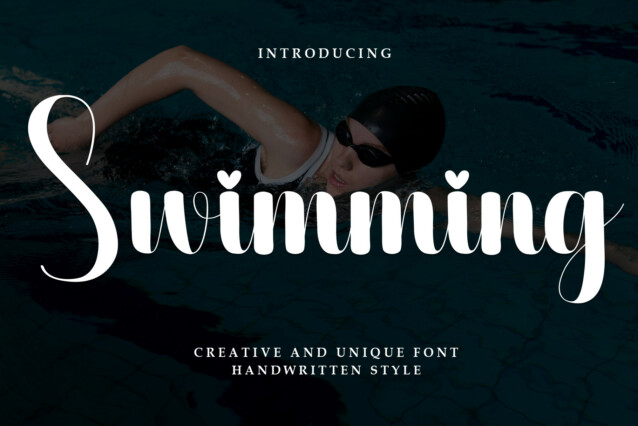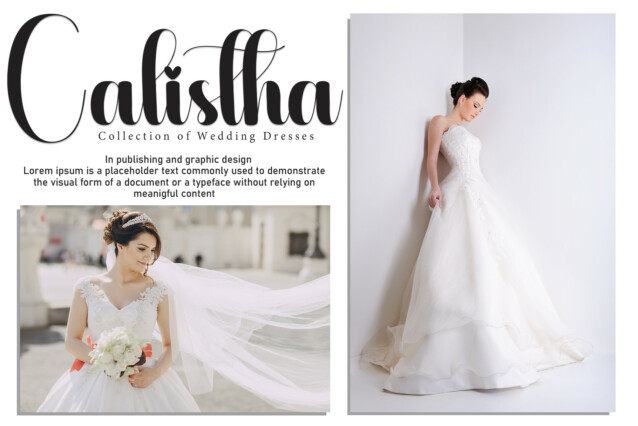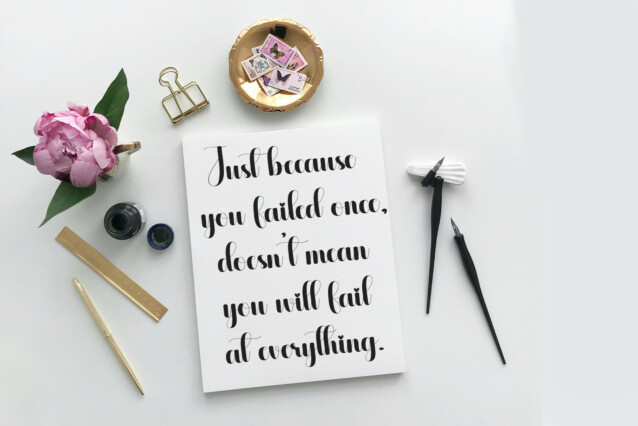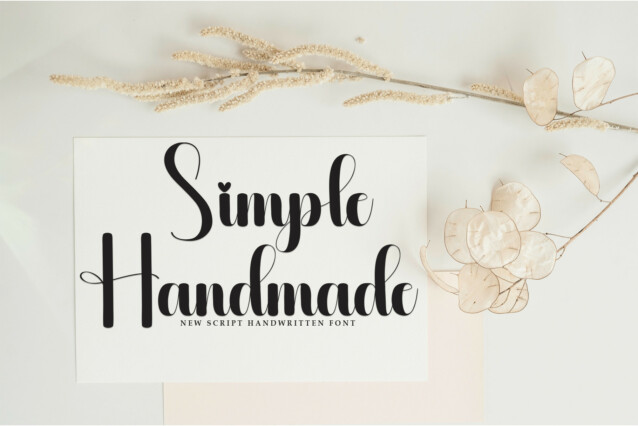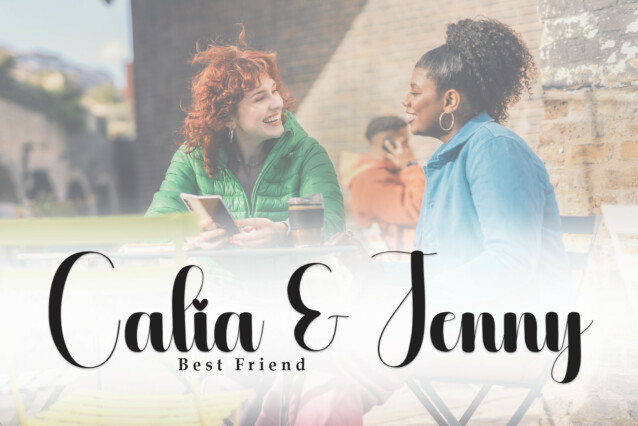
Swimming Script Font
Swimming Script Font is a wonderful, impactful handwritten script font that’s perfectly suited to wedding use. This sweet font comes complete with hearts to dot the i’s – perfect for a fun wedding celebration, but limited to.